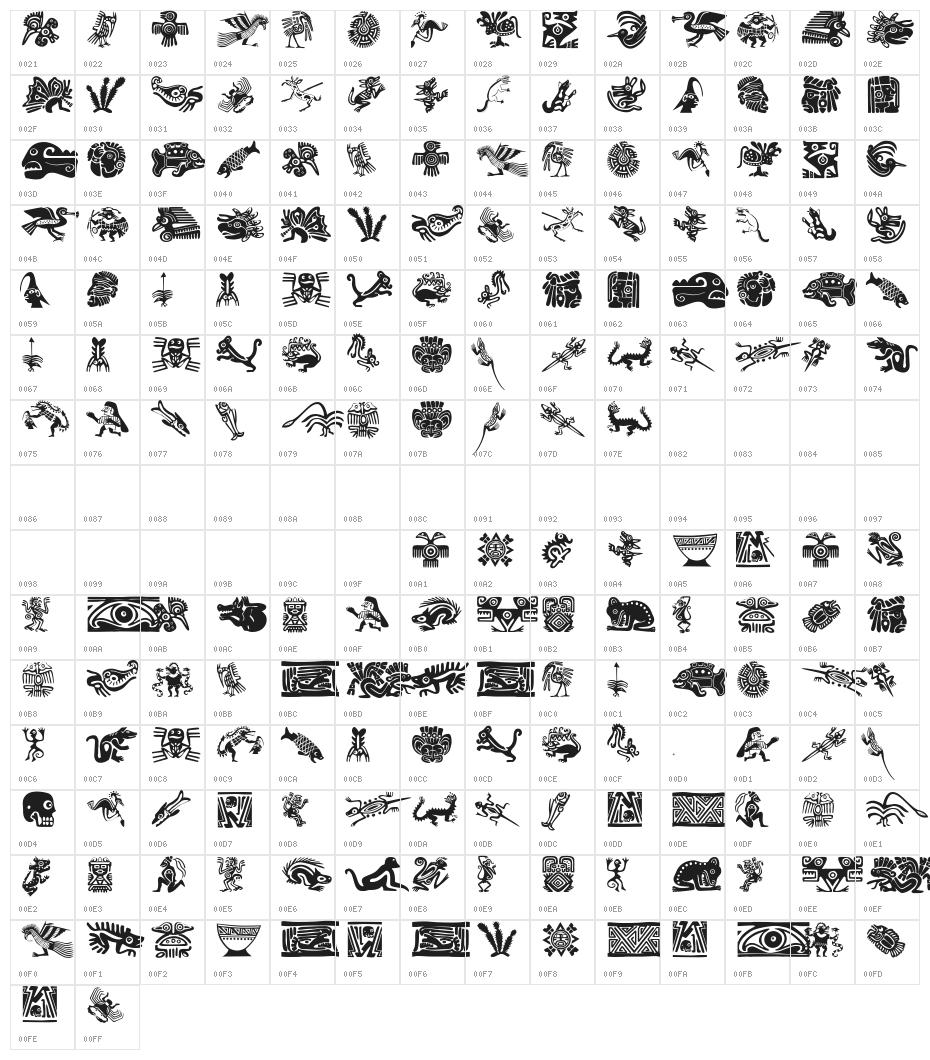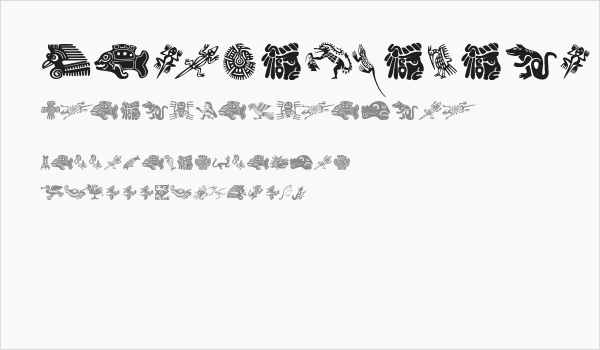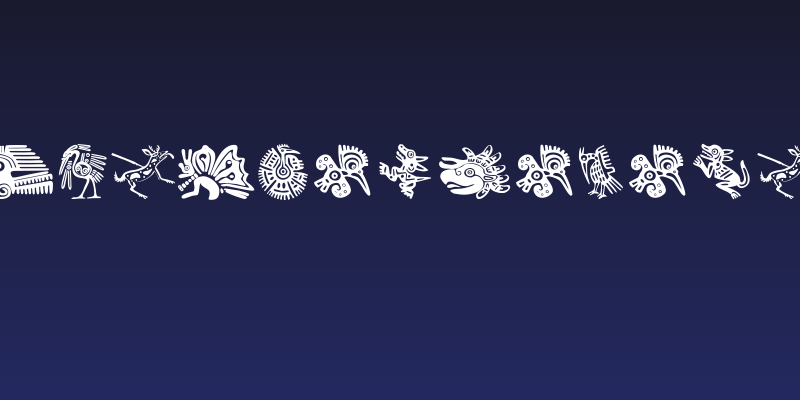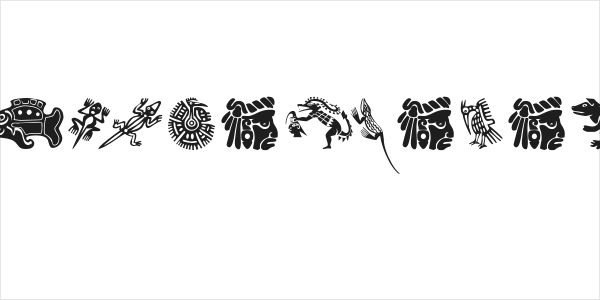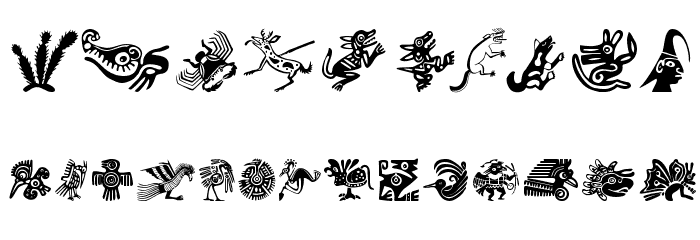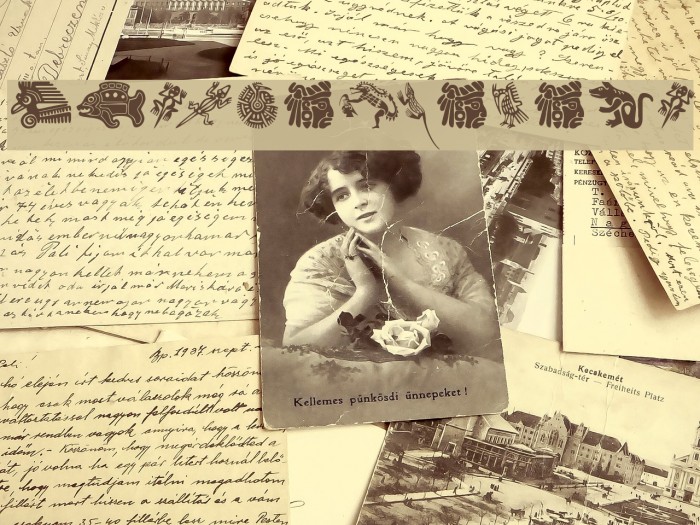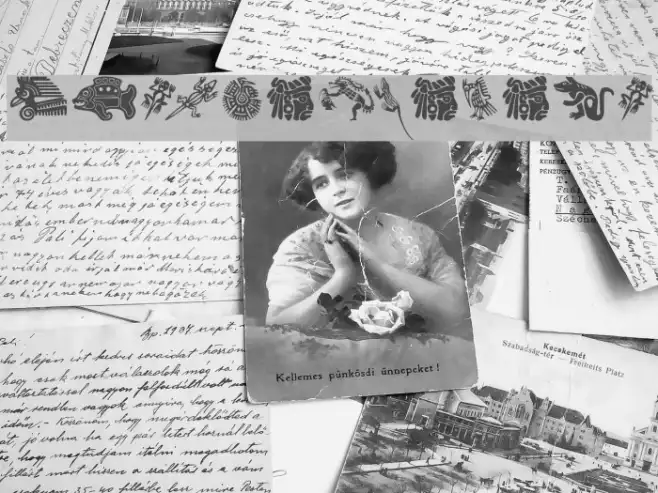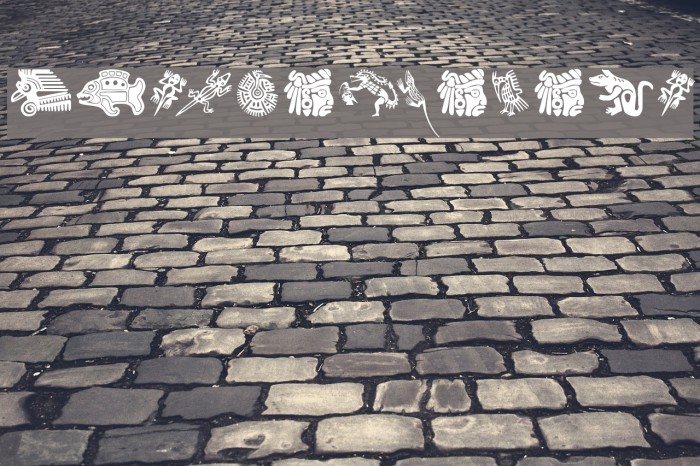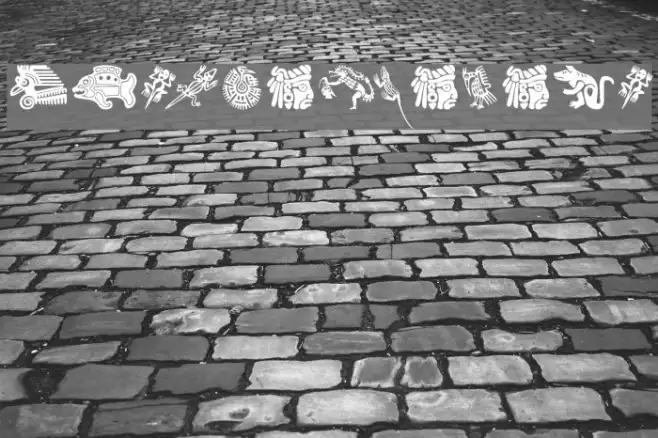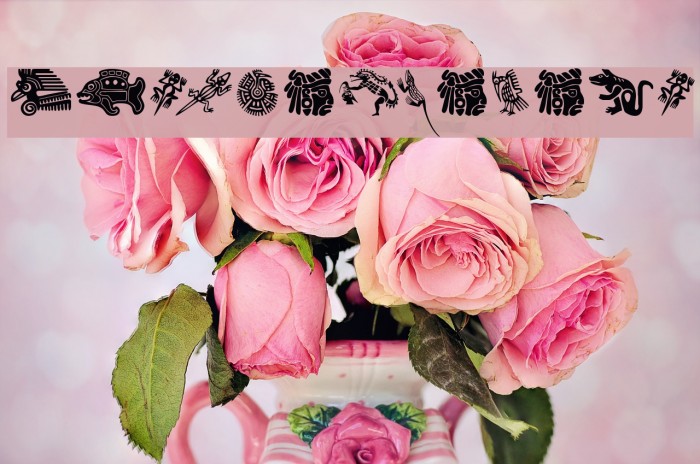
MesoFaunaBats Font
MesoFaunaBats Description
This font is a collection of intricate, decorative glyphs inspired by ancient and tribal art. Each character is a unique representation of animals and mythical creatures, featuring bold lines and complex patterns. The designs are highly detailed, with a strong emphasis on symmetry and geometric shapes, creating a visually striking and artistic appearance. The characters are more illustrative than textual, making them ideal for decorative purposes rather than traditional text display. The style evokes a sense of mystery and cultural richness, reminiscent of ancient civilizations and their artistic expressions.
| Use Case | Logos, Artistic projects, Cultural displays |
| Proposed Projects | This font is perfect for projects that require a cultural or historical theme, such as museum exhibits, educational materials, or artistic posters. It can also be used for branding that seeks a unique and exotic aesthetic. |